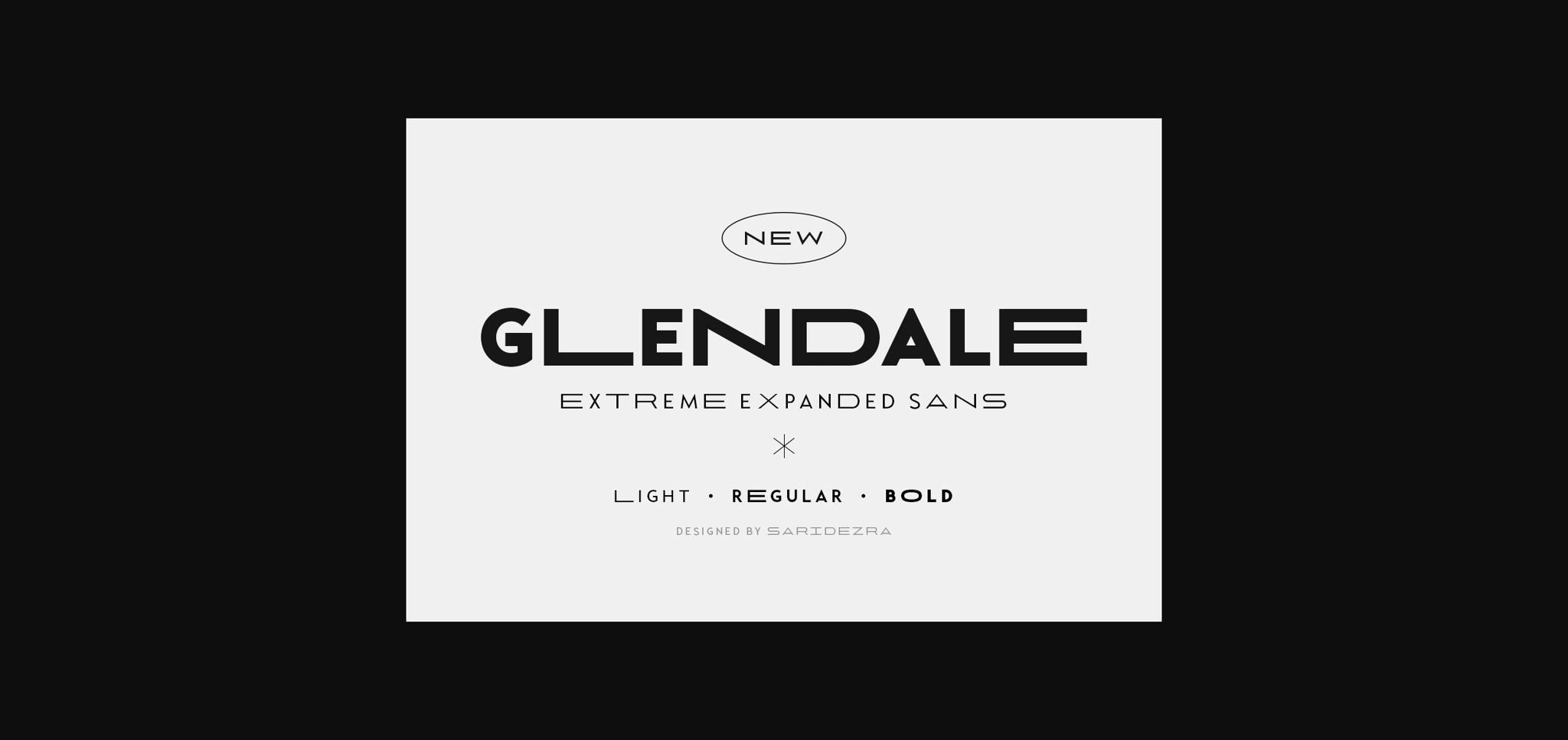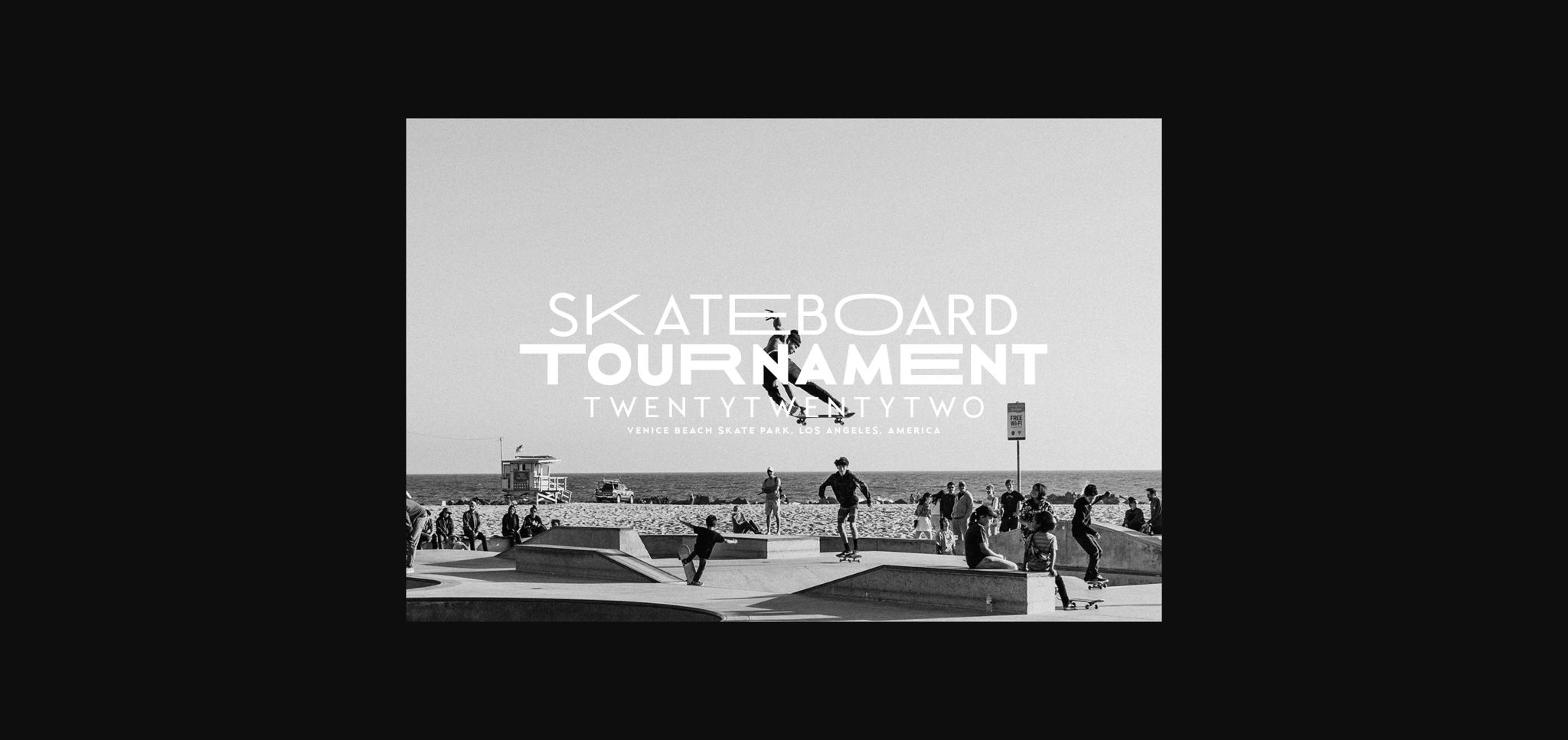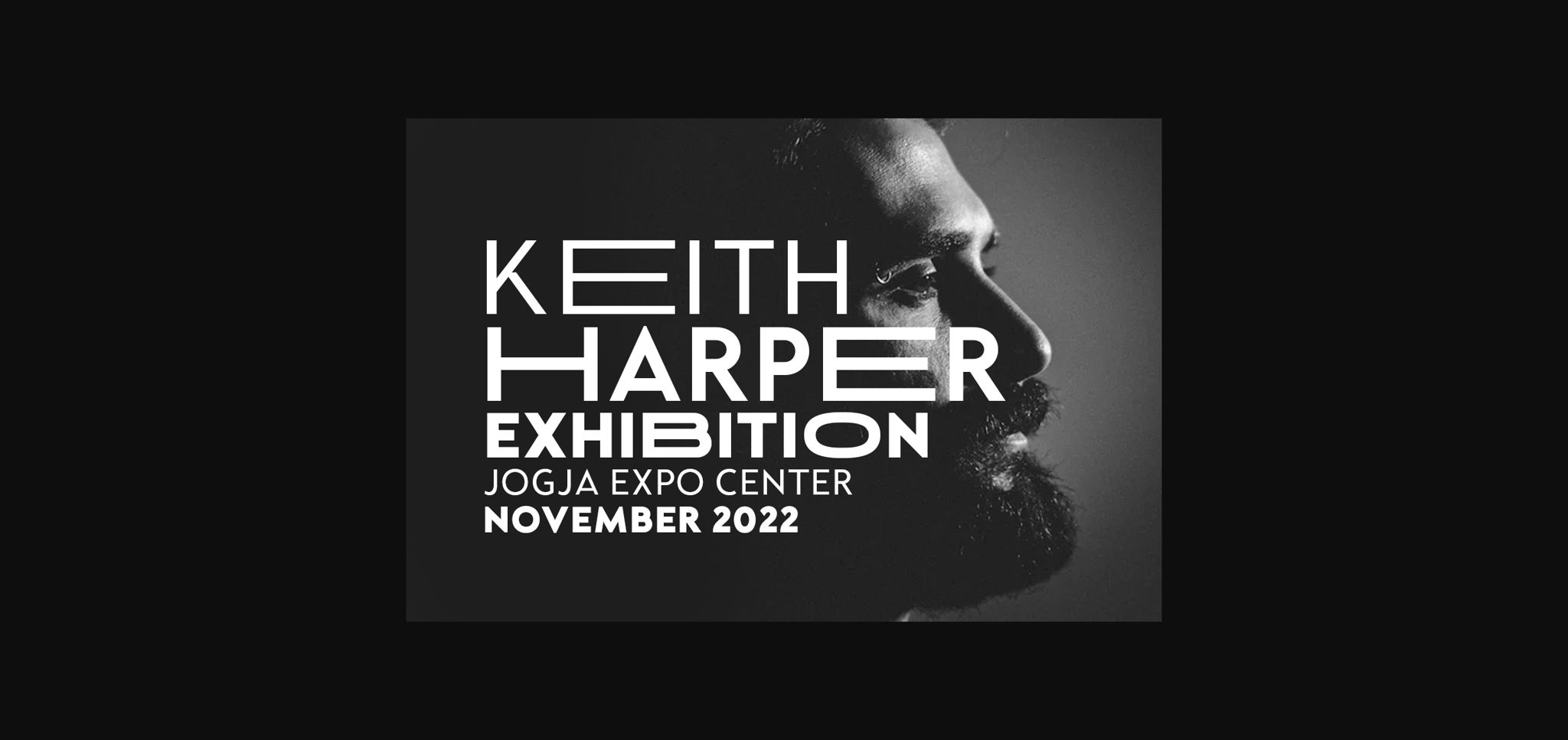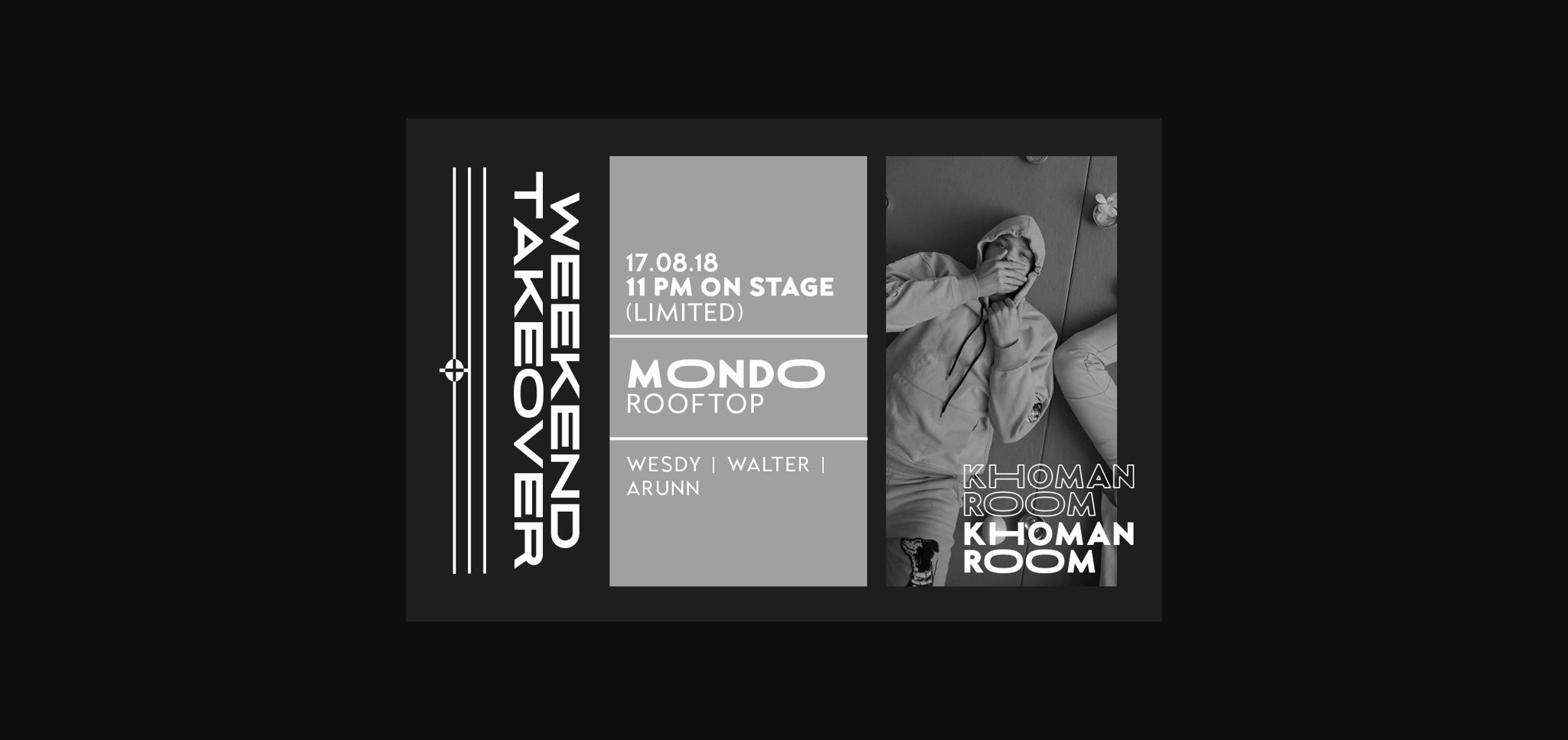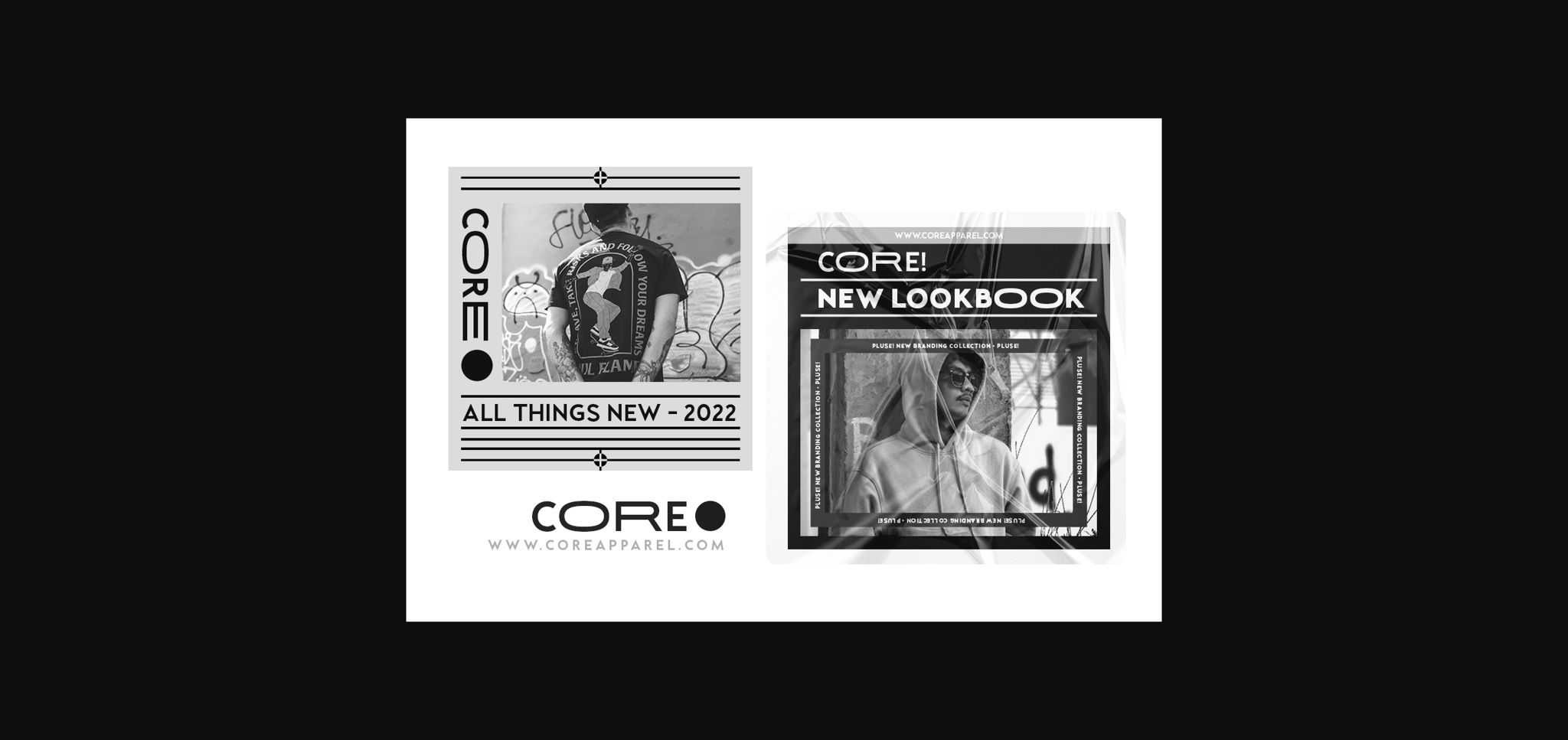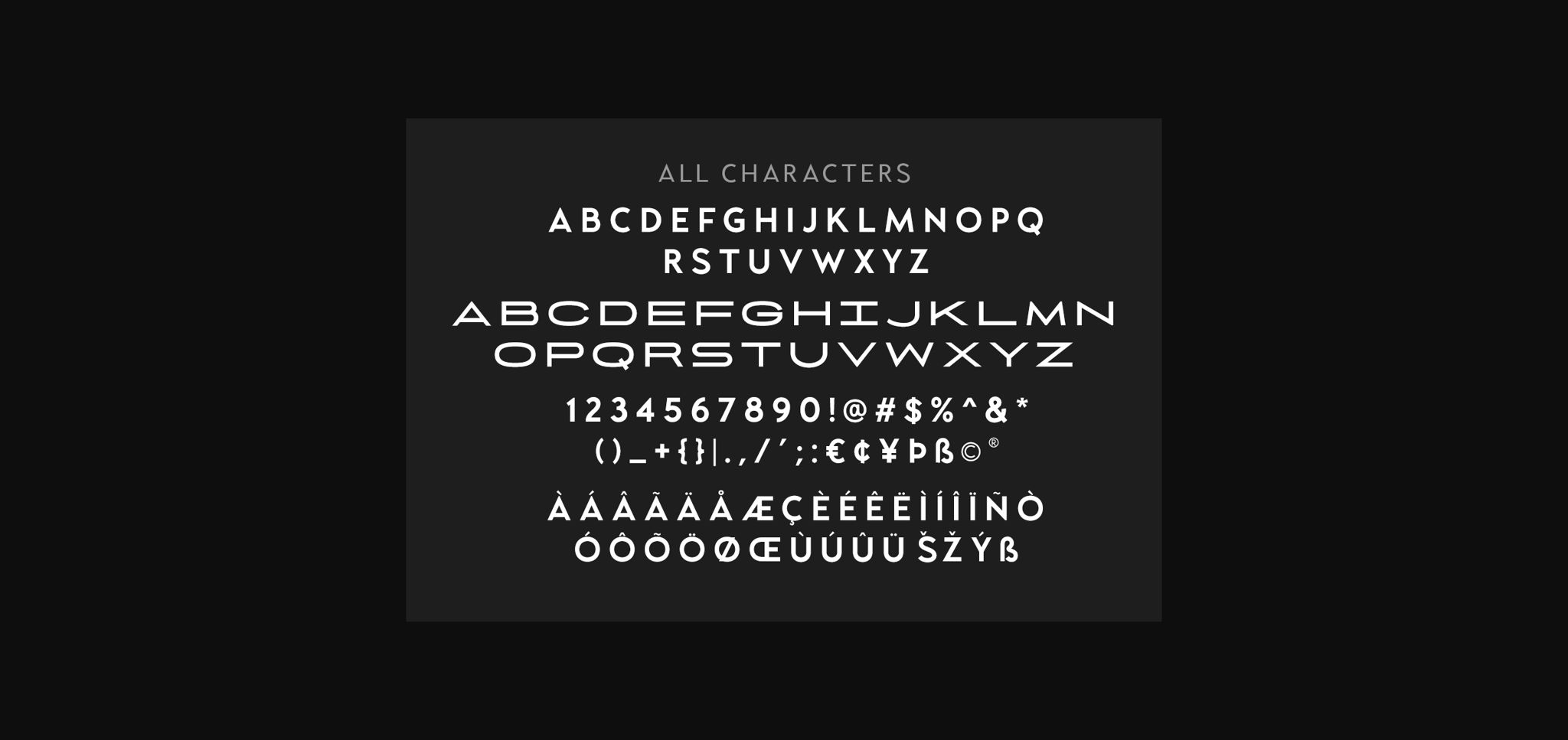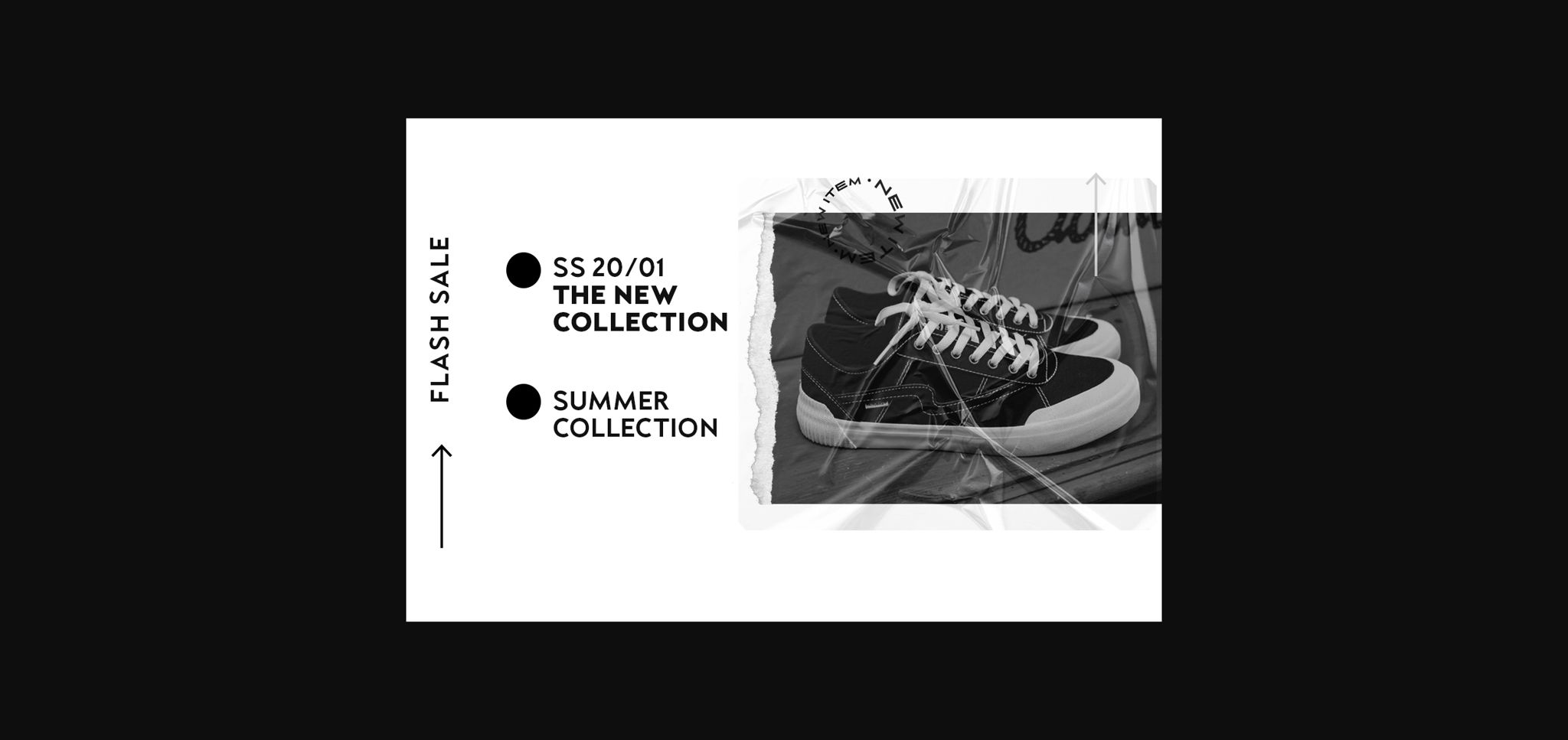
HomeSans Serif FontsGlendale Font Sans Serif Fonts Glendale Font FacebookXPinterestWhatsApp 1 of 9 ... Glendale Font Poster 2... Glendale Font Poster 3... Glendale Font Poster 4... Glendale Font Poster 5... Glendale Font Poster 6... Glendale Font Poster 7... Glendale Font Poster 8... Glendale Font Poster 9... About Glendale Font Glendale is a bold sans serif font, featuring expanded characters. It may effortlessly be matched to both formal and informal designs, so employ it confidently and you will love the outcome. DOWNLOAD NOW People also explored Hacuia Font Jancokrs Font Xagomax Font Phynth Font Maldonado Font Datty Font Montana Bright Font Deocore Font Los Angeles Font 437 0 TagsGlendale Font Previous articleAngel Hair Pasta FontNext articleWonderful Valentine Font LEAVE A REPLY Cancel reply Comment: Please enter your comment! Name:* Please enter your name here Email:* You have entered an incorrect email address! Please enter your email address here Website: Save my name, email, and website in this browser for the next time I comment. Personal Use Free Simple Personal Use Free Read more about this font Mellow Personal Use Free Read more about this font Muthiara Font Personal Use Free Read more about this font Consequences Personal Use Free Read more about this font BLOG Free Fonts Risk: Why Free Fonts Can Be Dangerous for Designers Free Fonts Risk: Why Free Fonts Can Be Dangerous for Designers Using free fonts is a common practice in web and graphic design. However, the... 5 Fonts That Will Dominate Design Trends in 2026 Best Fonts for YouTube Videos: Make Your Thumbnails Stand Out Exploring Font Trends